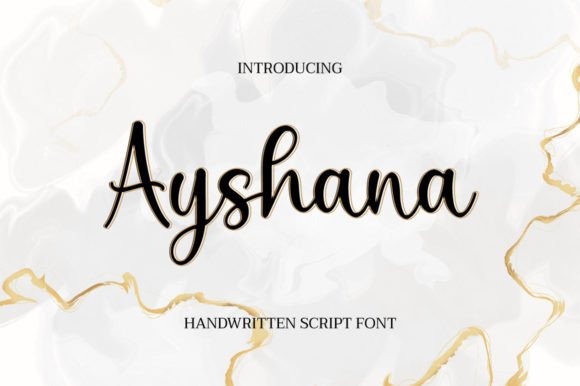
Immerse yourself in the enchanting world of Ayshana, a script font that dances with elegance and grace. Its meticulously crafted strokes evoke a sense of timeless beauty, making it the perfect companion for crafting unforgettable wedding programs, heartfelt invitations, and captivating branding designs.
With Ayshana, your words will transform into an enchanting symphony of visual artistry. Its delicate curves and flowing lines add a touch of sophistication and charm to any design, ensuring that your messages leave a lasting impression. Whether you're a creative professional, a passionate crafter, or simply seeking to add a personal touch to your projects, Ayshana is the perfect font to elevate your creations.
Unleash your creativity and let Ayshana guide you on a journey of self-expression. Its PUA encoding grants you effortless access to a treasure trove of glyphs and swashes, opening up a world of endless possibilities. Experiment with different combinations, explore unique layouts, and let your imagination soar.
Ayshana is more than just a font; it's an invitation to step into a realm of boundless creativity, where your ideas take center stage. Embrace the allure of Ayshana and watch as your designs blossom into captivating masterpieces that enchant and inspire.